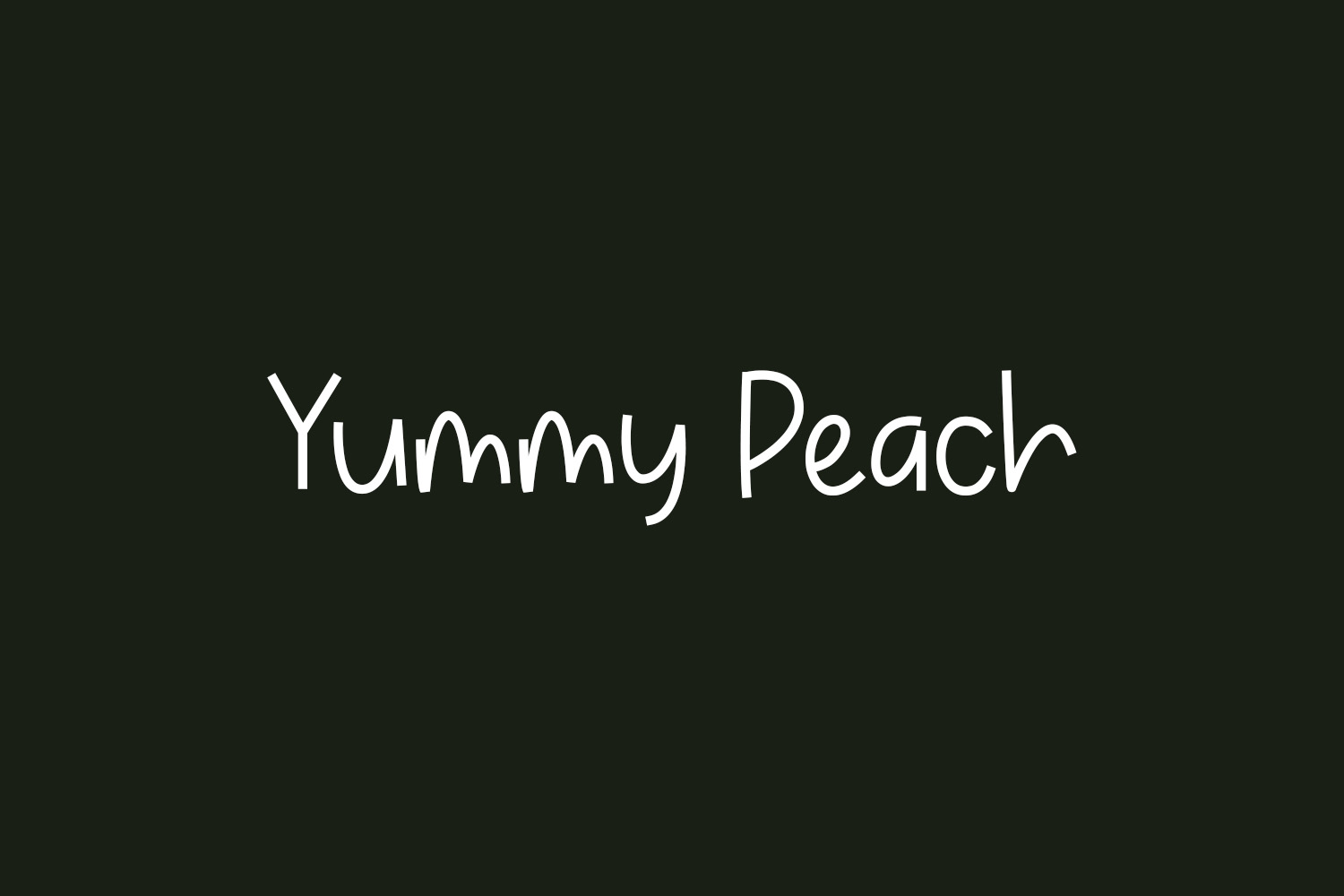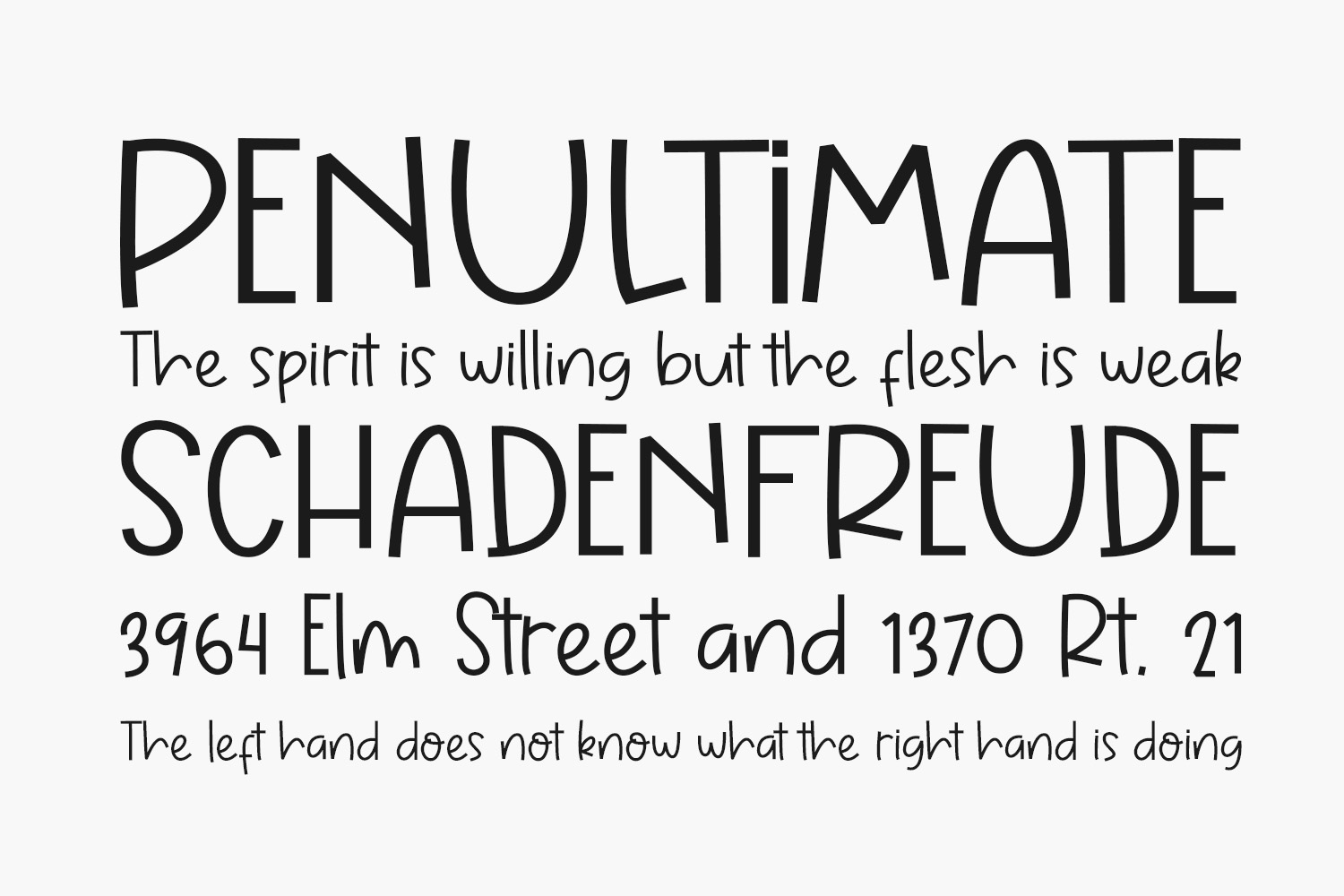
Yummy Peach Free Font is a cute, simple, and playful display font. Add to each of your party invitations, gathering, or pretty much any design that requires a touch of youth and joy. Yummy Peach Free Font was designed by ONG Type and is free for personal use only. Please purchase the full version for commercial use.